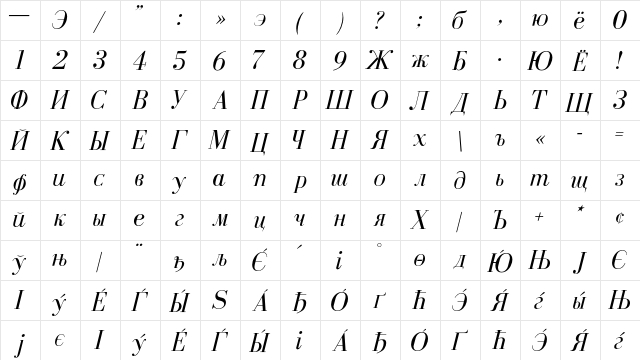
Ekaterina Regular Font Preview
Ekaterina Regular
Design Context for Ekaterina Typeface
Ekaterina offers clean, dependable letterforms without strong stylistic allegiance, making it a practical choice for designers who need flexibility.